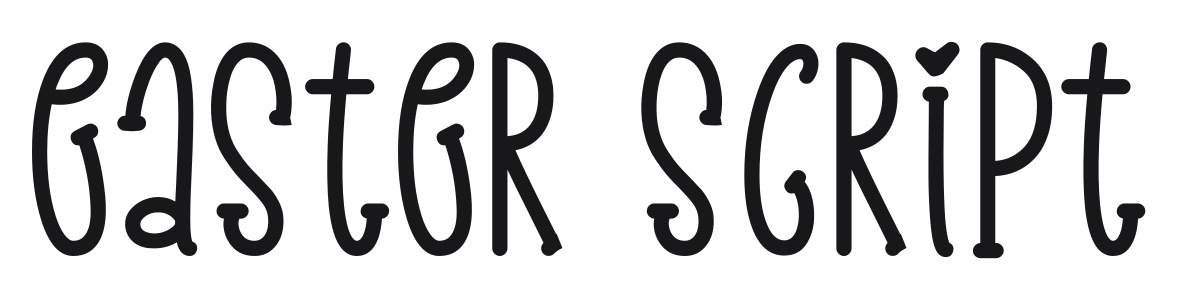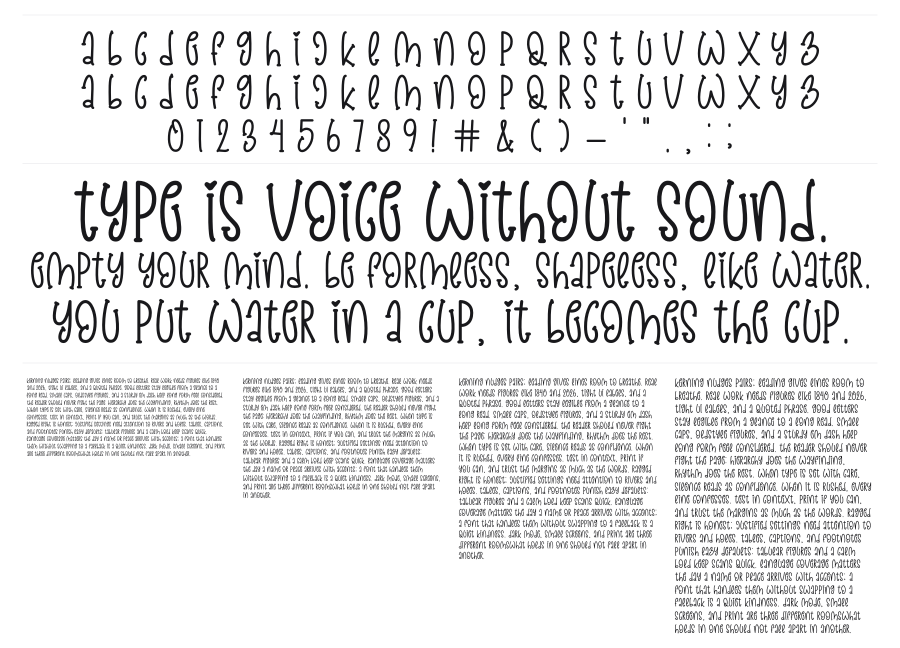
Easter Script
Easter Script is a chunky upright handwritten font with rounded strokes and cheerful, looping terminals. Its bouncy rhythm and decorative curls give it an unmistakably festive, springtime personality. It works well for greeting cards, seasonal packaging, children's content, and holiday promotions.